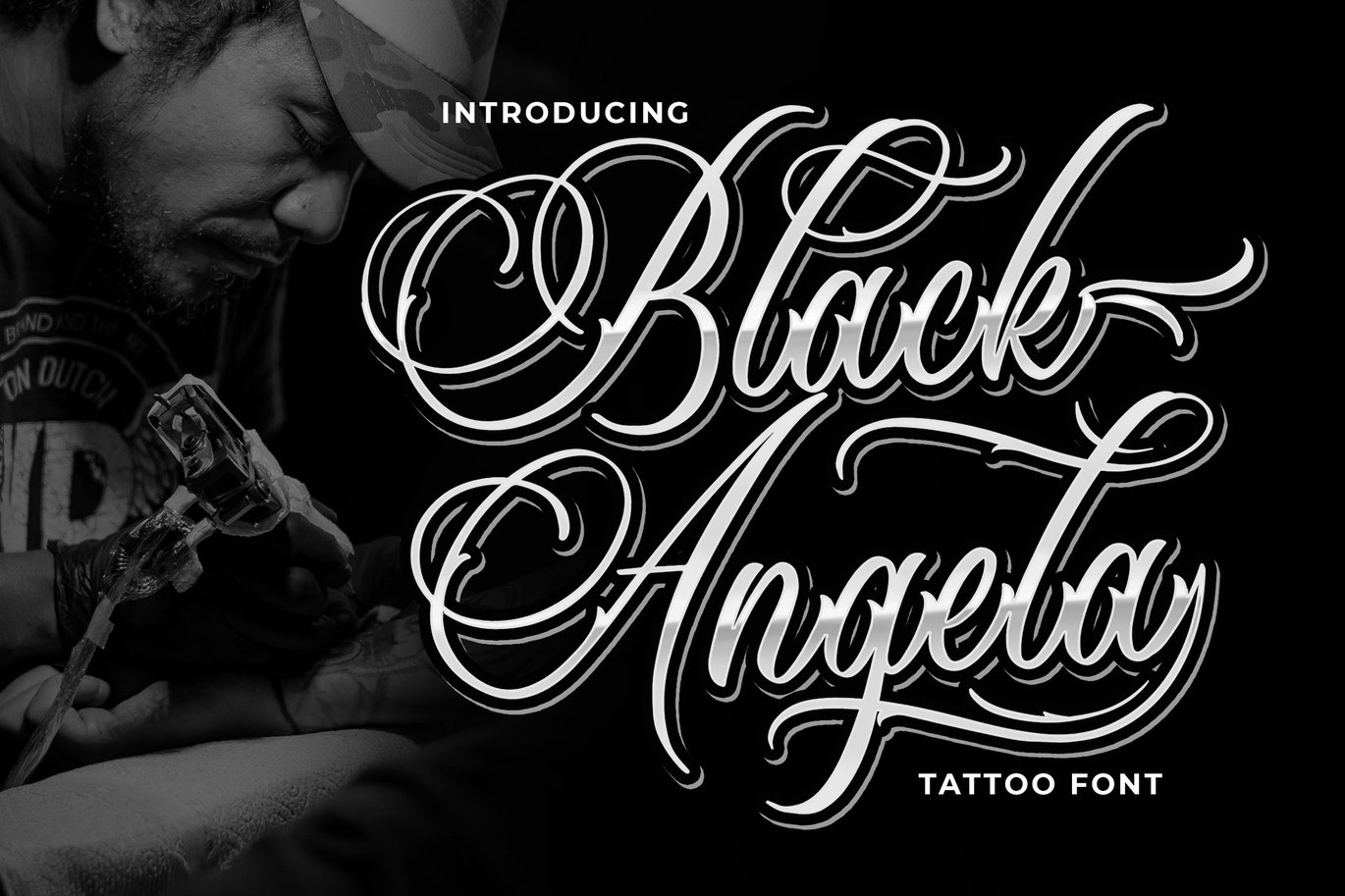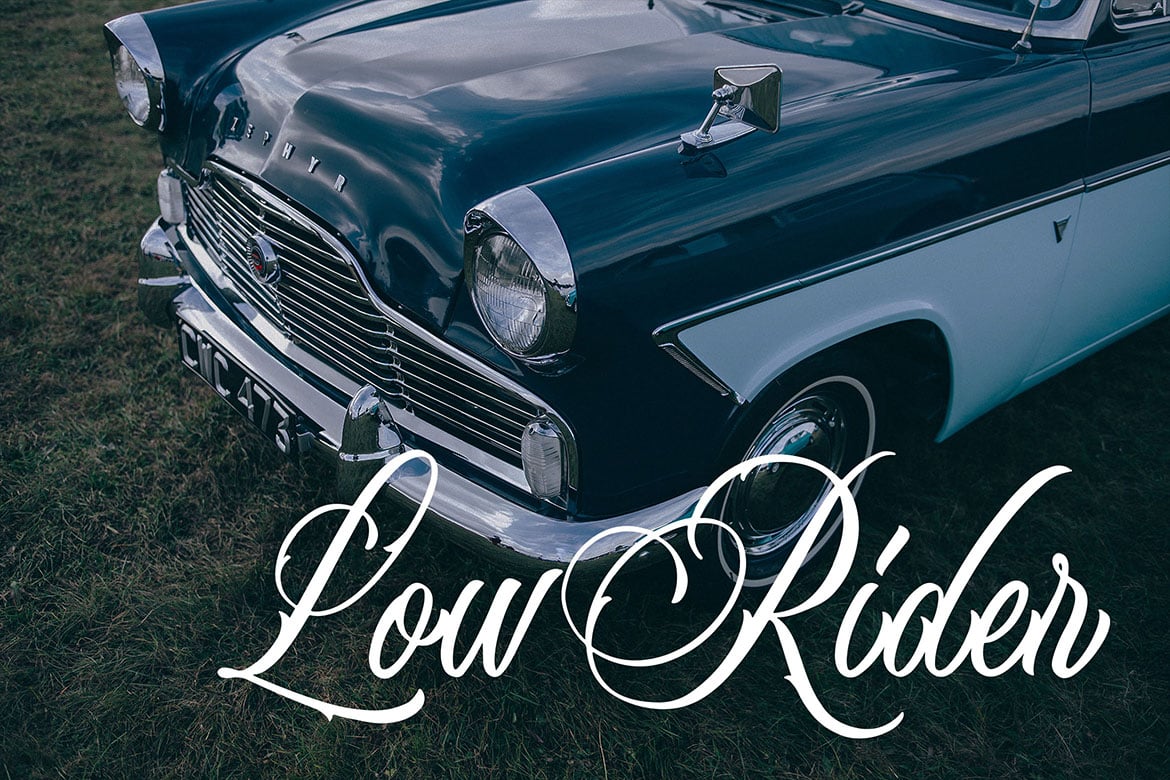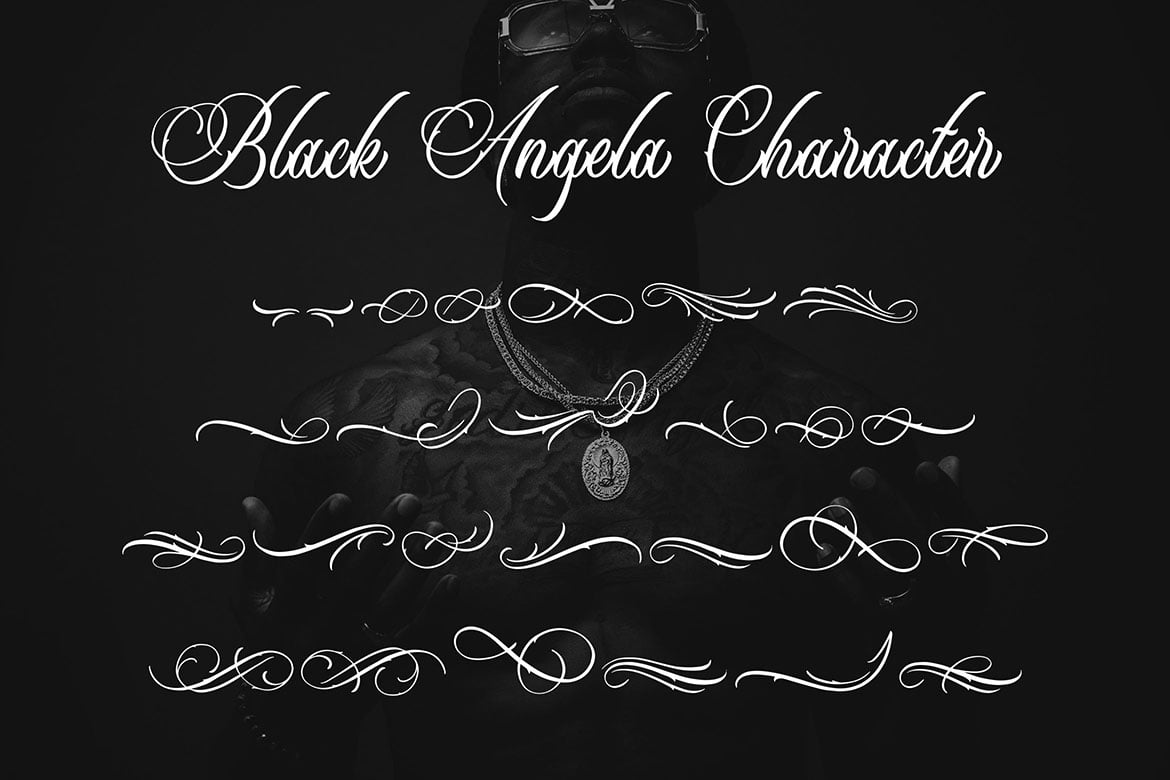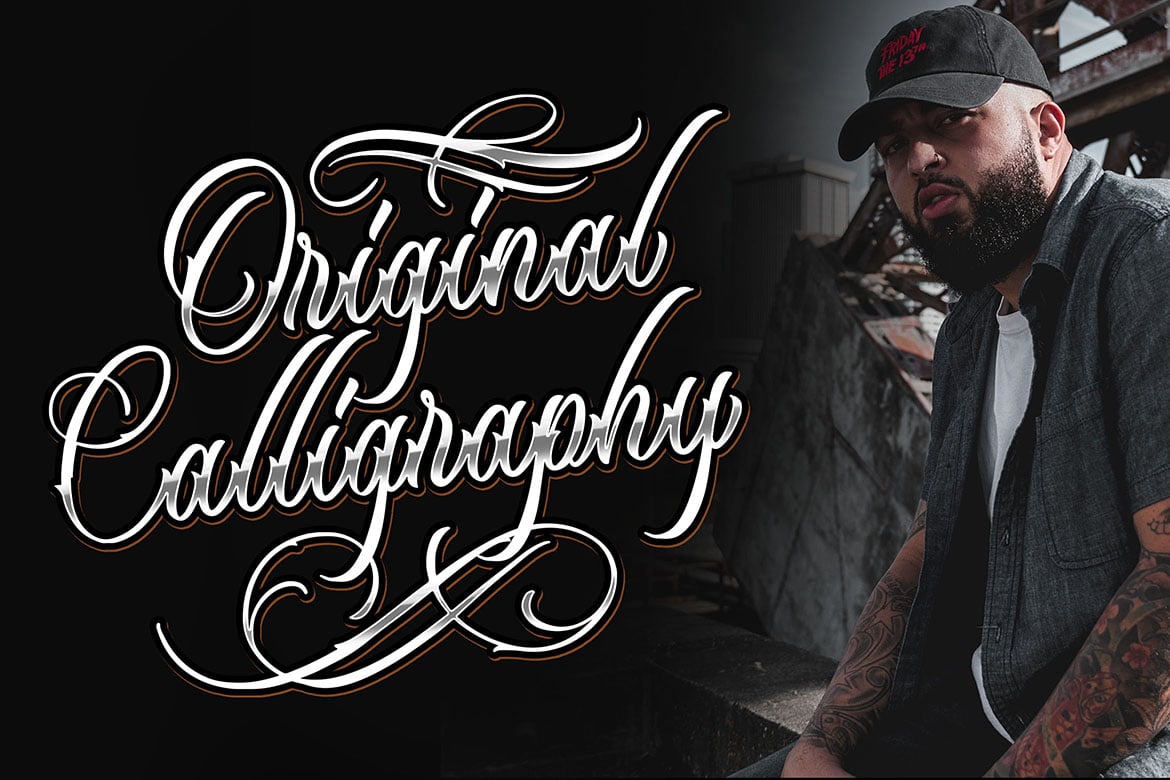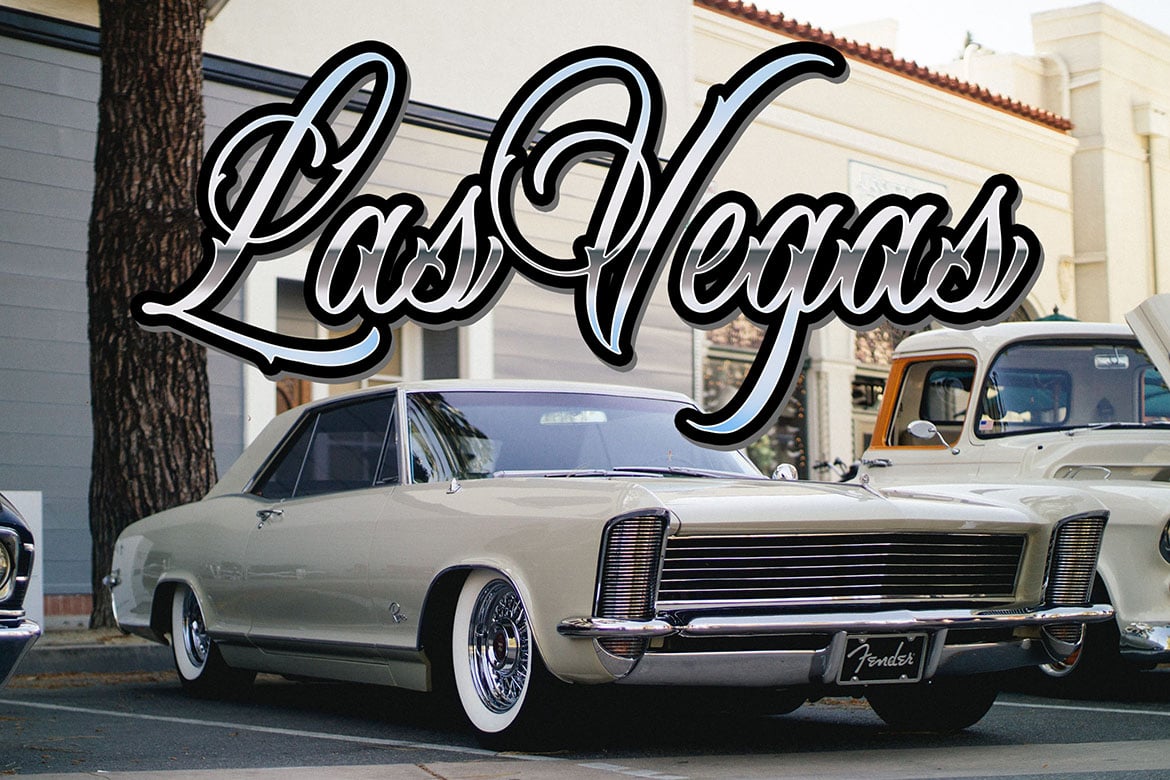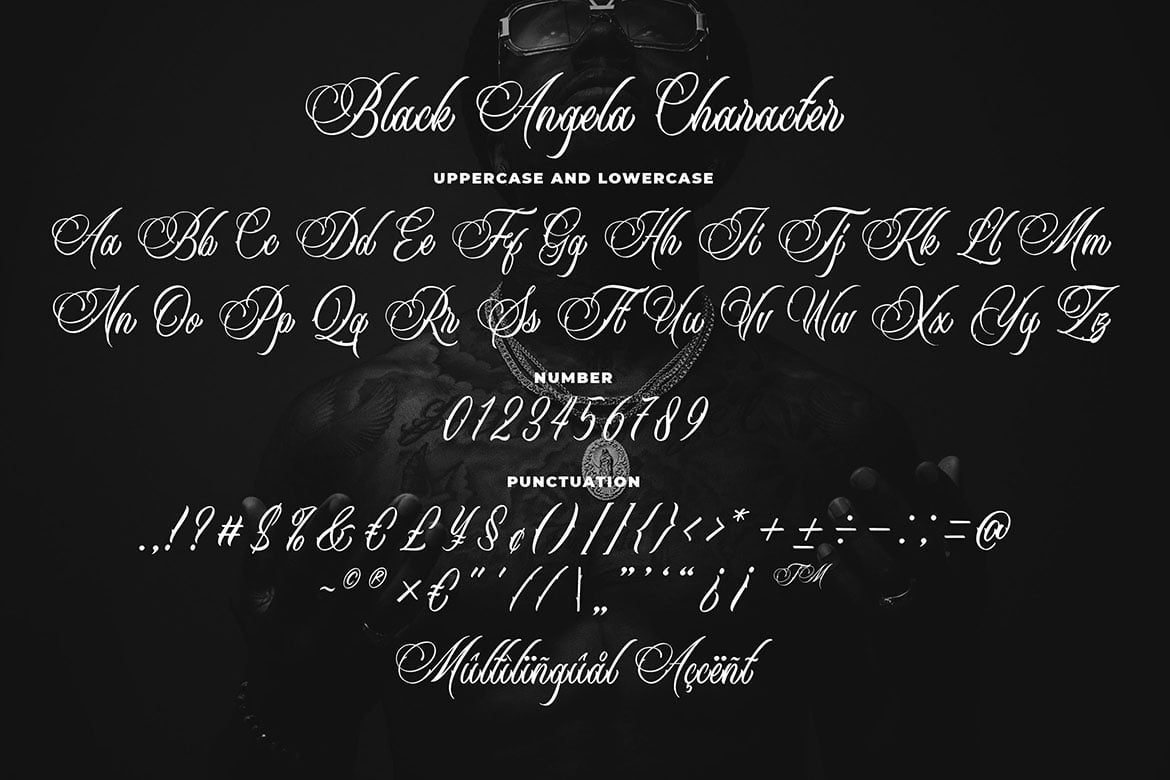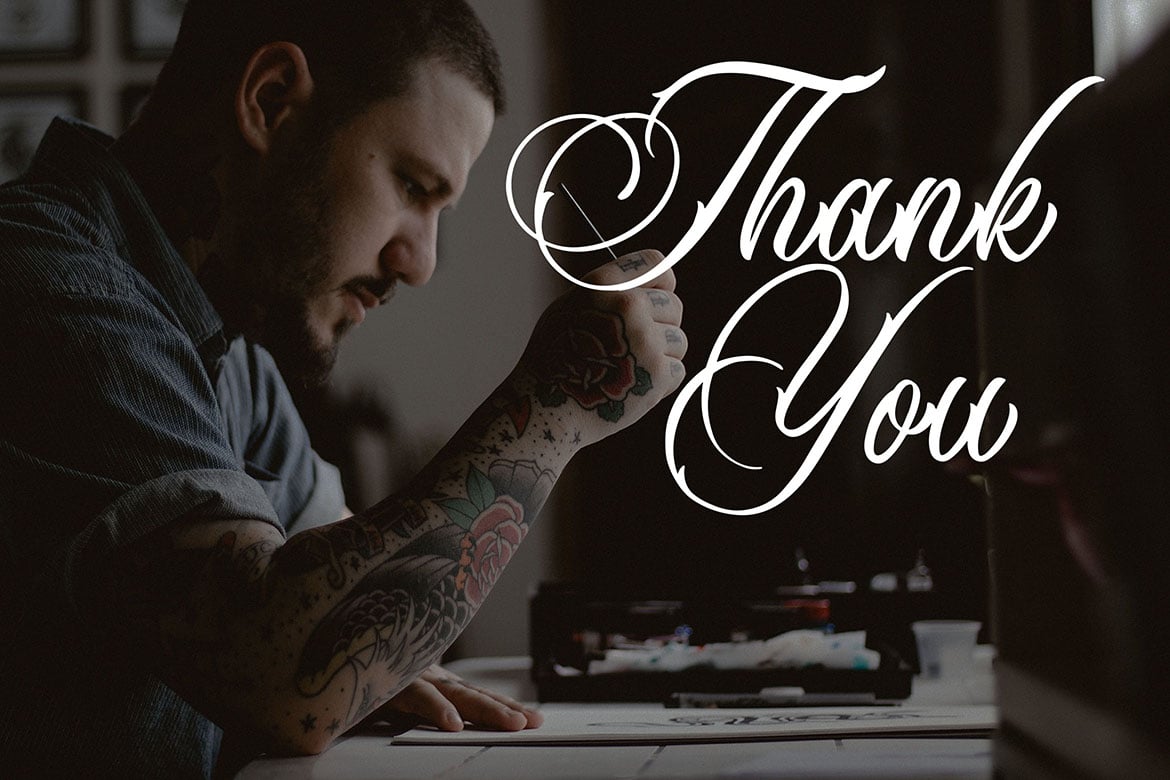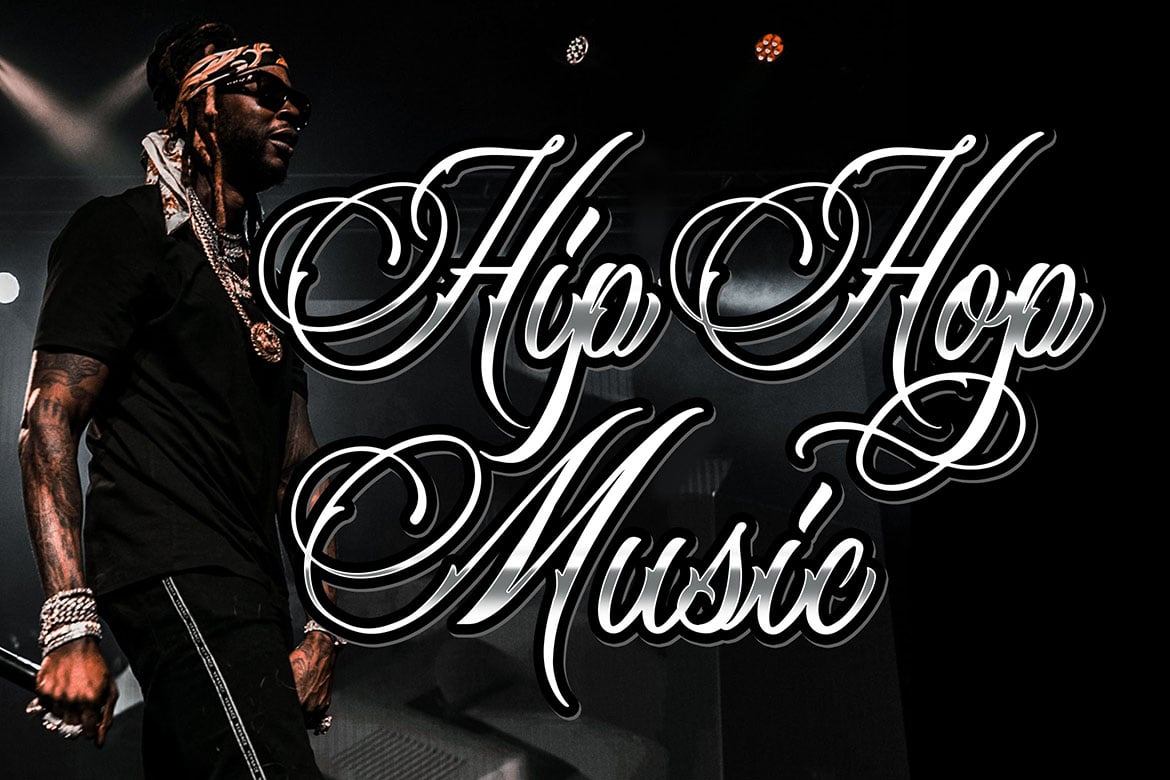
Black Angela – Tattoo Font
Introducing a new Script font called Black Angela. Black Angela inspired by Lettering Tattoo Style. Black Angela came with open type features for logotype, Barbershop, badge, Tattoo Artist, Tattoo merchandise, tattoo letters and any more.
MULTILINGUAL ACCENT :
- ŽžŠŒšŸÀÁÂÃÄÅÆÇÈÉÊËÌÍÎÏÐÑÒÓÔÕÖØÙÚÛÜÝßàáâãäåæçèéêëìíîïðñòóôõöøùúûüýÿ